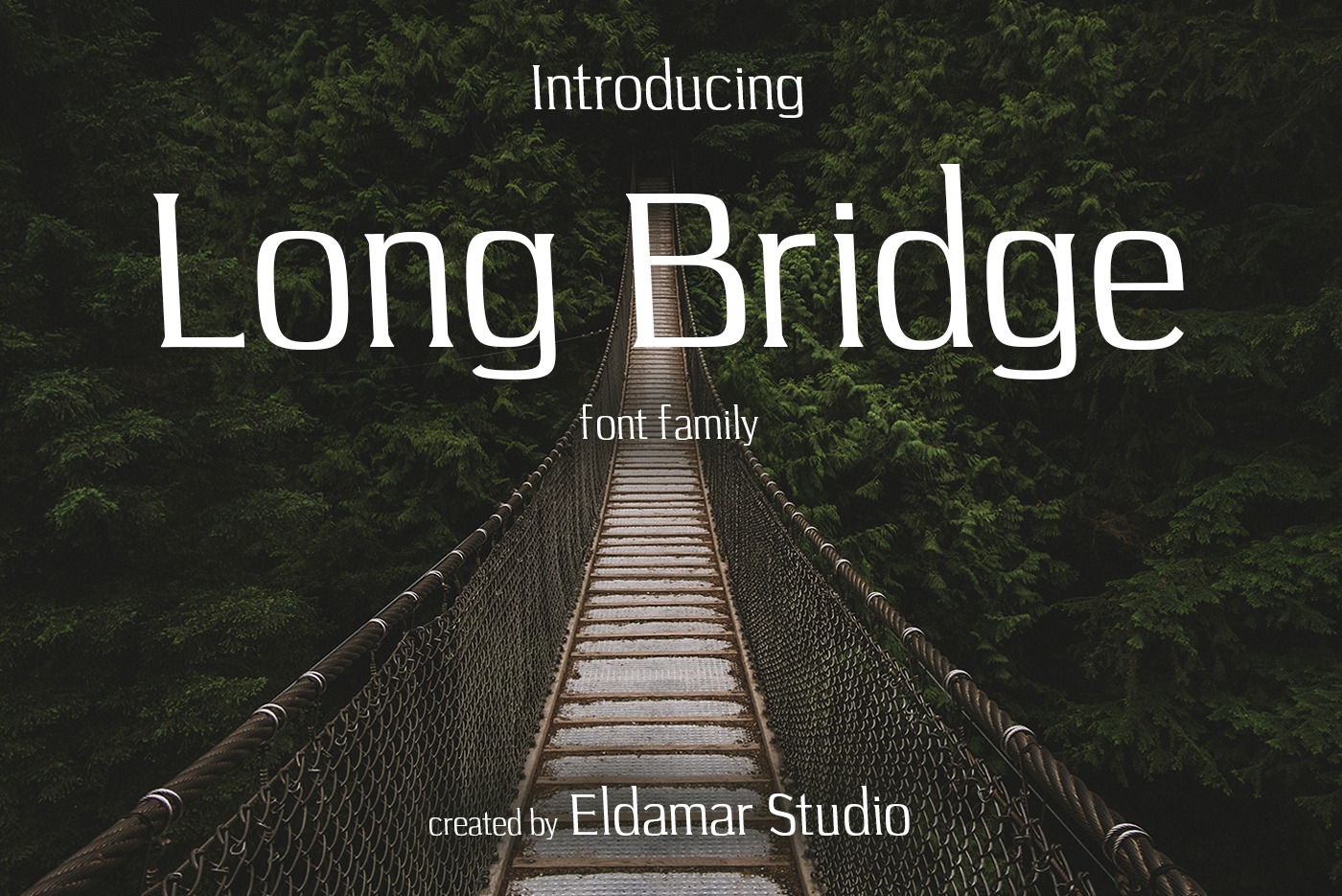
Long Bridge Font
Long Bridge Font it's a wonderful font with a unique, detailed and handmade look. These fonts looks amazing in all caps with a wide-set spacing if you want to try a classy look, or beautiful on its own in capital and lowercase letters for something completely timeless. Perfect for gorgeous logos, displays, headers, invitations, save the dates, weddings, titles, web layouts and branding, etc.